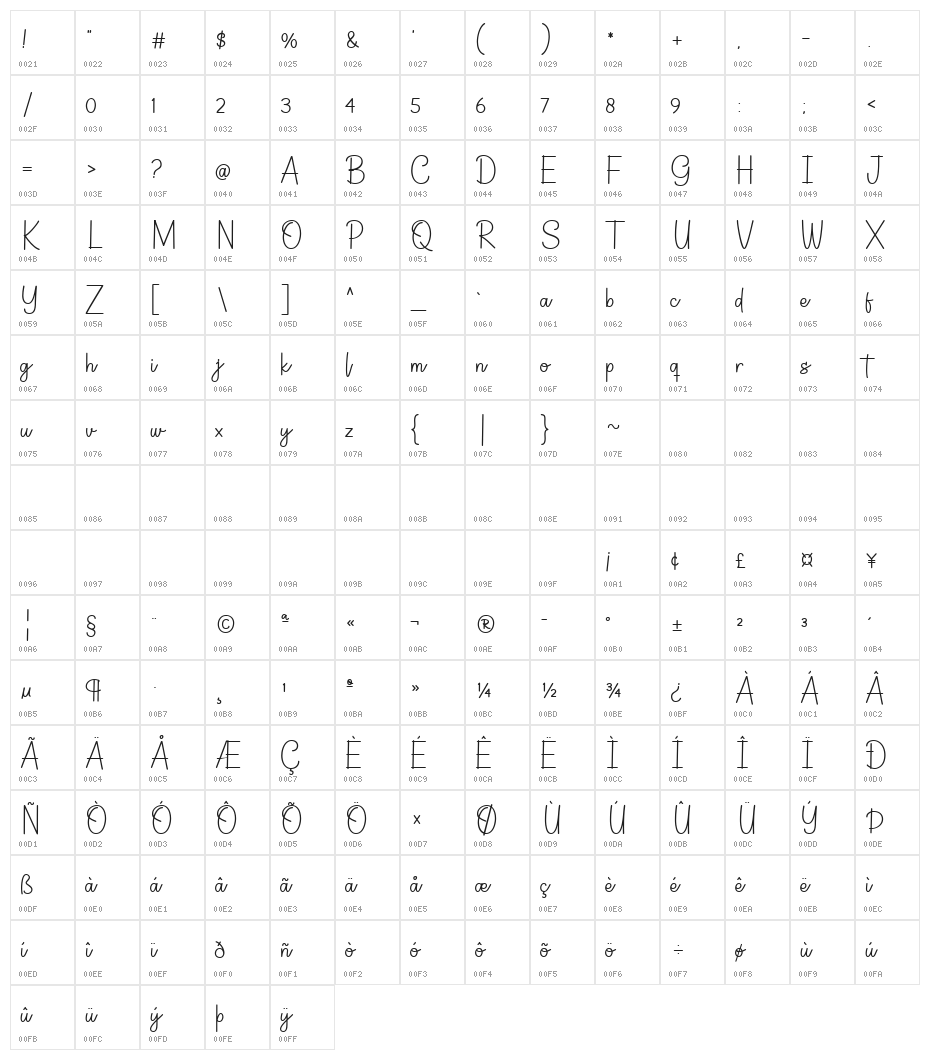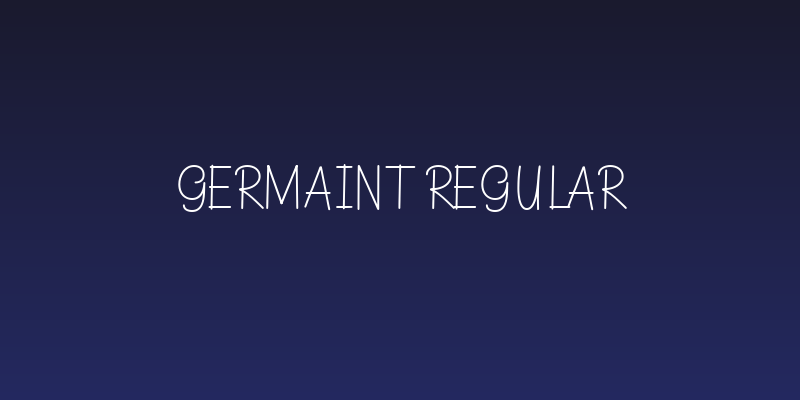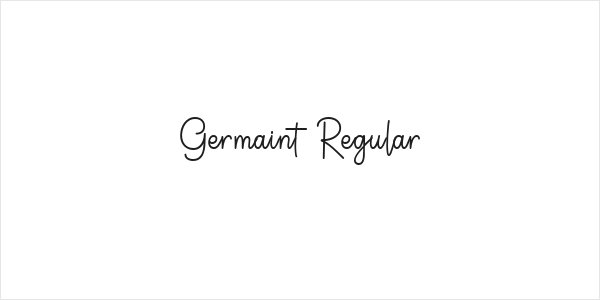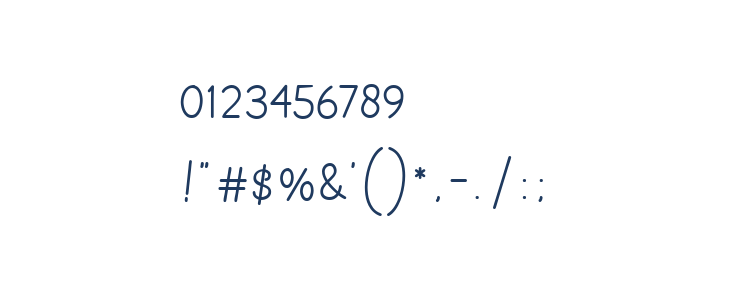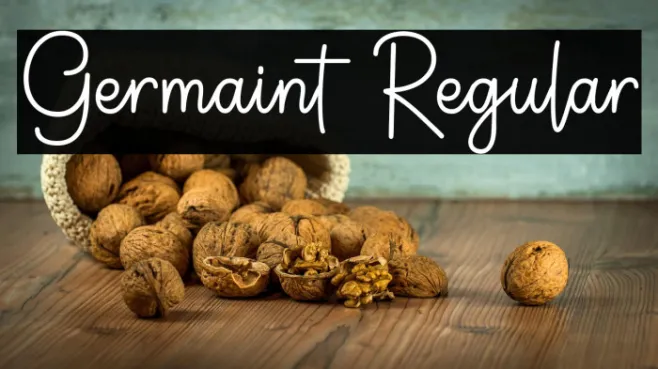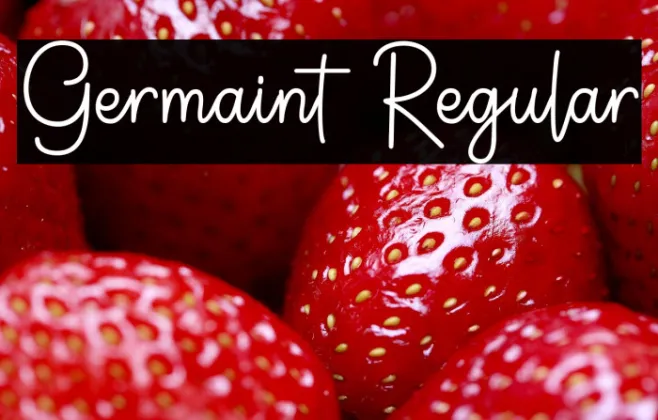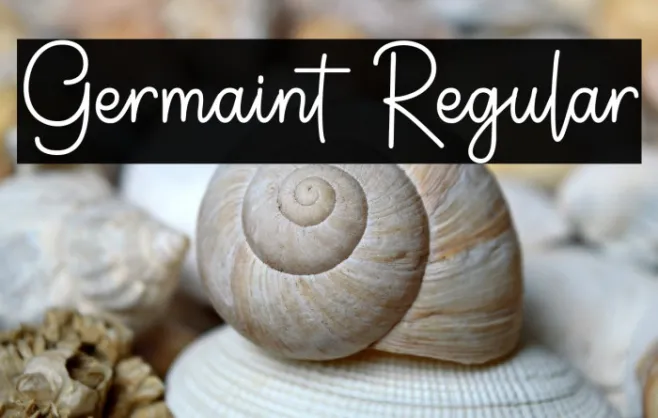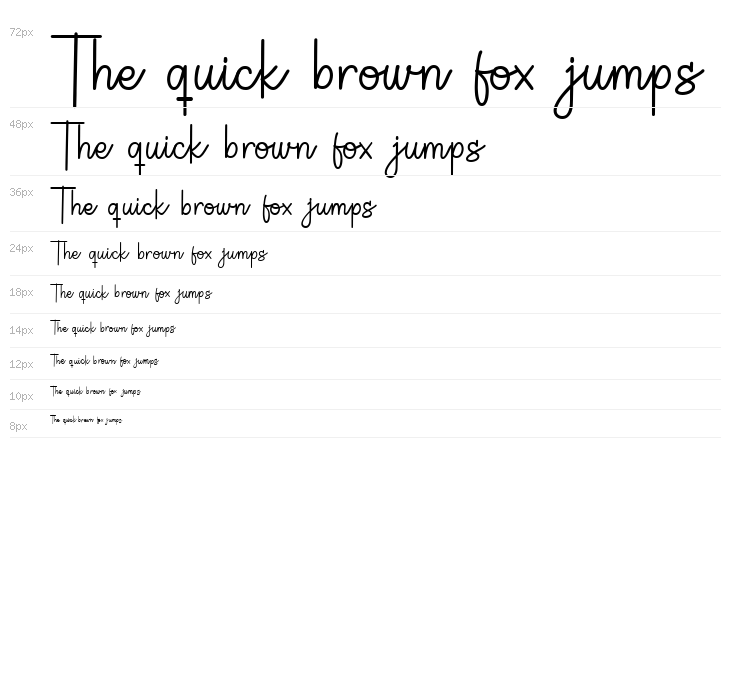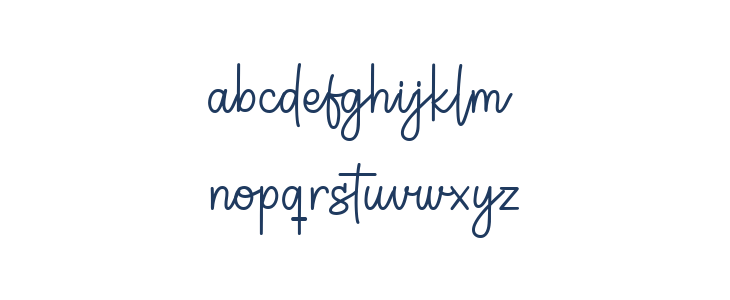
Germaint Regular Font
Germaint Regular Description
This font features a playful and casual handwritten style, combining both uppercase and lowercase letters with a smooth, flowing script. The uppercase letters are tall and slender, with a slight slant that adds a dynamic feel. The lowercase letters are more rounded and connected, creating a harmonious balance. The numerals are clear and consistent, maintaining the playful aesthetic. Special characters are included, matching the overall style with a touch of whimsy. This font's unique character is perfect for adding a personal touch to any project.
| Proposed Projects | Ideal for greeting cards, invitations, personal branding, and creative projects that require a friendly and approachable look. |